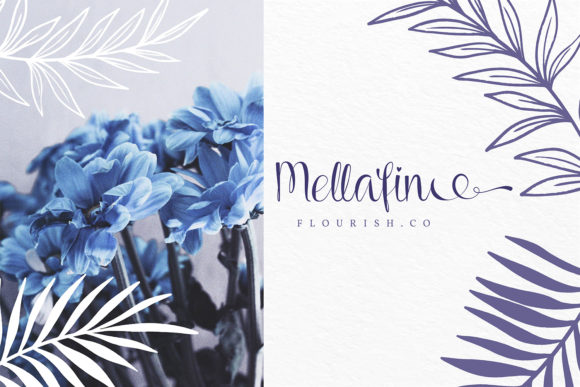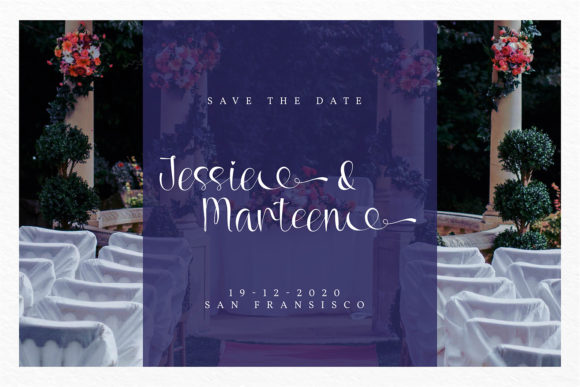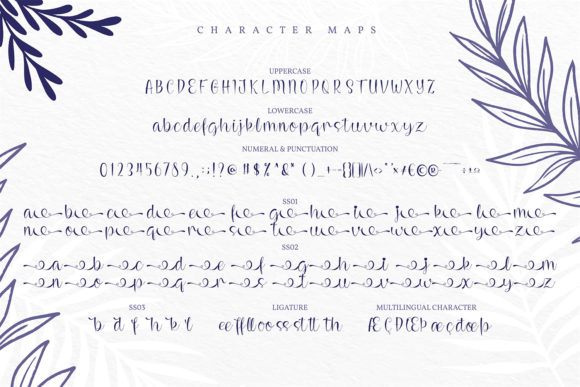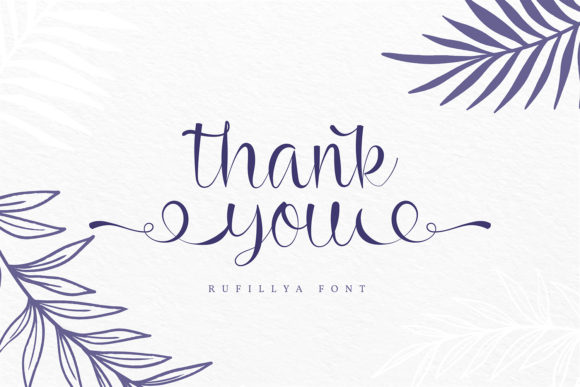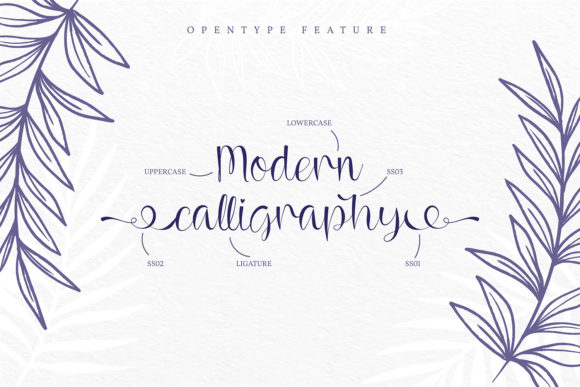
Rufillya Font
About Rufillya Font
Rufillya is a lovely and romantic handwritten font. It is PUA encoded which means you can access all of the glyphs and swashes with ease! It maintains its classy calligraphic influences while feeling contemporary and fresh. Fall in love with this font and bring your projects to the highest levels!